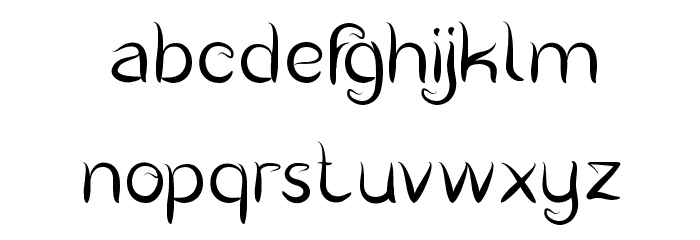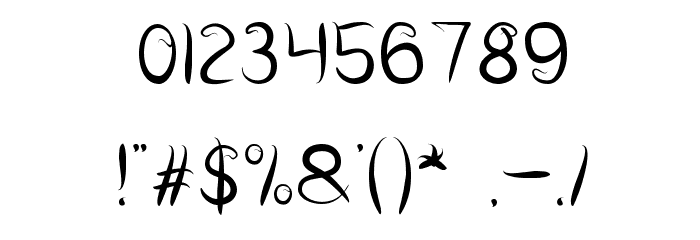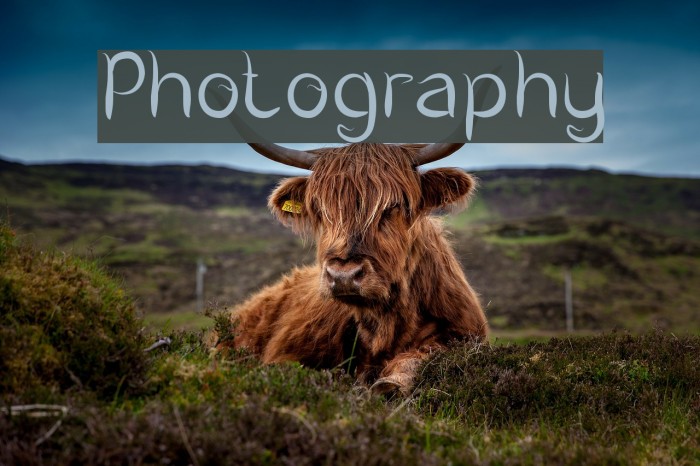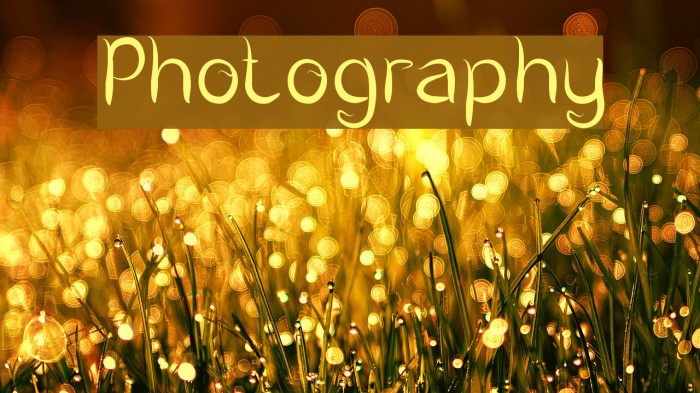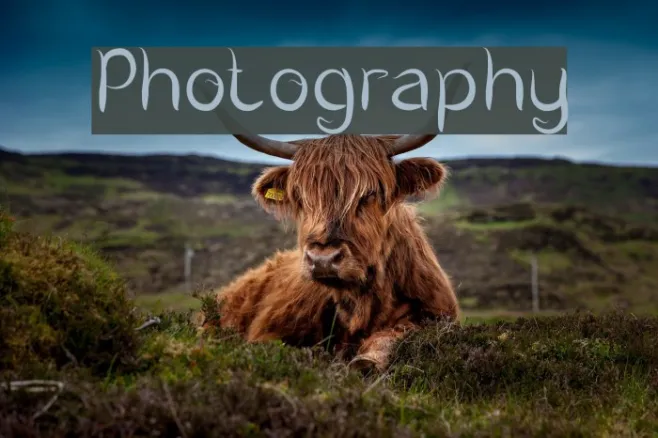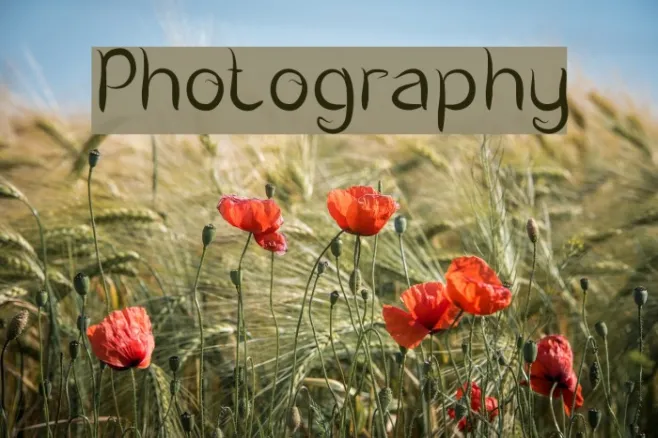
Photography Font
This font features a unique and artistic style, characterized by its flowing, curved lines and slightly whimsical appearance. The uppercase letters have a distinct flair, with some characters exhibiting elongated strokes and playful curves. The lowercase letters maintain a consistent style, with a smooth and fluid design that complements the uppercase set. Numbers and special characters follow the same artistic theme, making the font cohesive and visually appealing. The overall design is both decorative and modern, suitable for creative projects that require a touch of elegance and individuality.
A whimsical and artistic font with flowing, curved lines.
- Proposed Projects: Ideal for creative projects such as invitations, greeting cards, branding, and artistic posters.
- Use Case: Logos, Headlines, Artistic projects